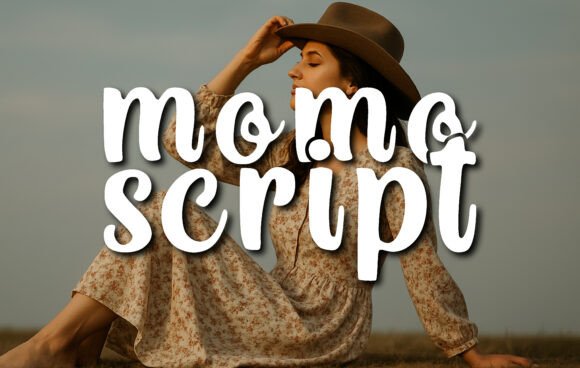
Momo Script Font: The Ultimate Guide to a Playful Handwritten Font
Are you looking for a font that can add a personal touch to your designs? Look no further than the Momo Script Font. This charming handwritten font is perfect for a variety of design projects, from branding and social media posts to greeting cards and t-shirt designs. In this article, we’ll take a closer look at the Momo Script Font and explore its features, benefits, and uses.
What is Momo Script Font?
Momo Script is a playful handwritten font with a bold, casual flow and a touch of whimsy. Its smooth curves, thick strokes, and bouncy baseline give it a joyful, handcrafted feel that’s perfect for adding a personal touch to any project. The font’s legibility and warm personality make it a go-to choice for both print and digital design.
Features of Momo Script Font
- Handwritten style: Momo Script has a natural, handwritten look that’s perfect for adding a personal touch to your designs.
- Bold and casual flow: The font’s bold and casual flow makes it perfect for headlines, titles, and other design elements that need to stand out.
- Smooth curves and thick strokes: The font’s smooth curves and thick strokes give it a playful and whimsical feel.
- Bouncy baseline: The font’s bouncy baseline adds to its playful and handcrafted feel.
- Legible: Despite its playful style, Momo Script is highly legible, making it perfect for use in both print and digital design.
Uses of Momo Script Font
Momo Script is a versatile font that can be used in a variety of design projects, including:
- Branding: Use Momo Script to create a unique and memorable brand identity.
- Social media posts: Add a personal touch to your social media posts with Momo Script.
- Greeting cards: Use Momo Script to create playful and personalized greeting cards.
- Lifestyle blogs: Add a touch of whimsy to your lifestyle blog with Momo Script.
- T-shirt designs: Use Momo Script to create fun and playful t-shirt designs.
- Fashion design: Use Momo Script to add a touch of personality to your fashion designs.
- DIY products: Use Momo Script to create custom labels and packaging for your DIY products.
- Creative storytelling: Use Momo Script to add a touch of whimsy to your creative storytelling projects.
Benefits of Using Momo Script Font
There are many benefits to using Momo Script in your design projects, including:
- Unique and memorable: Momo Script is a unique and memorable font that can help your designs stand out.
- Personal touch: The font’s handwritten style adds a personal touch to your designs.
- Versatile: Momo Script can be used in a variety of design projects, from branding and social media posts to greeting cards and t-shirt designs.
- Legible: Despite its playful style, Momo Script is highly legible, making it perfect for use in both print and digital design.
Tips for Using Momo Script Font
Here are a few tips for using Momo Script in your design projects:
- Use it sparingly: While Momo Script is a beautiful font, it can be overwhelming if used too much. Use it sparingly to add a touch of whimsy to your designs.
- Pair it with other fonts: Momo Script pairs well with other fonts, such as sans-serif fonts. Experiment with different font combinations to find the perfect look for your design.
- Adjust the size and color: Adjust the size and color of Momo Script to fit your design needs.
- Use it for headlines and titles: Momo Script is perfect for headlines and titles, where its bold and casual flow can really shine.
Momo Script is a charming handwritten font that’s perfect for adding a personal touch to your design projects. Its smooth curves, thick strokes, and bouncy baseline give it a joyful, handcrafted feel that’s hard to ignore. With its legibility and warm personality, Momo Script is a go-to choice for both print and digital design. Whether you’re designing for fashion, DIY products, or creative storytelling, Momo Script is a versatile font that can help your designs stand out.
- What is Momo Script Font? Momo Script is a playful handwritten font with a bold, casual flow and a touch of whimsy.
- What is Momo Script Font used for? Momo Script can be used in a variety of design projects, including branding, social media posts, greeting cards, lifestyle blogs, t-shirt designs, and more.
- Is Momo Script Font legible? Yes, despite its playful style, Momo Script is highly legible, making it perfect for use in both print and digital design.